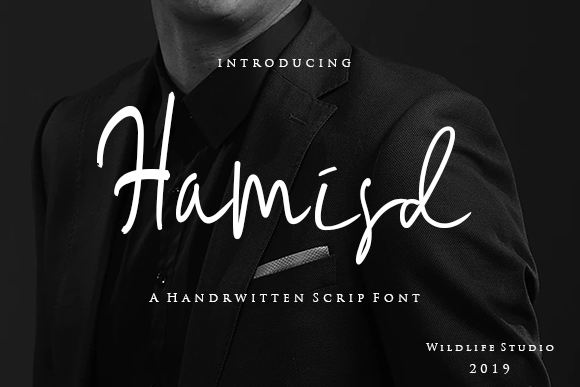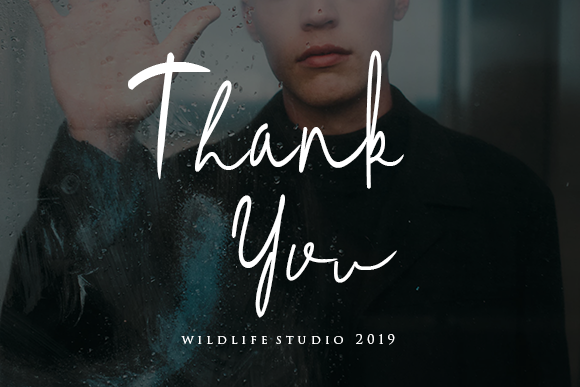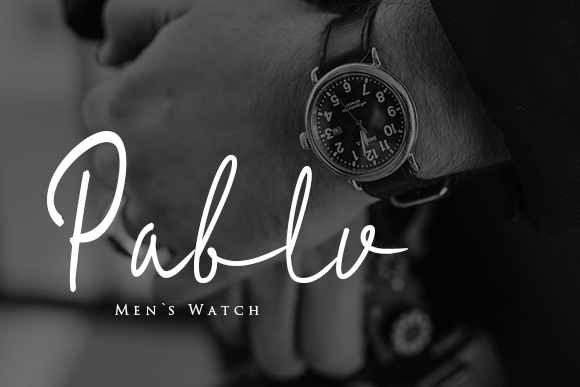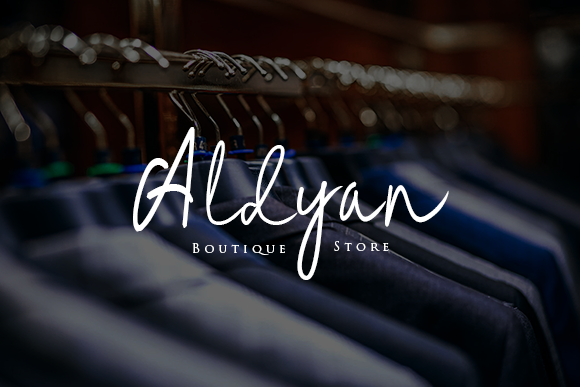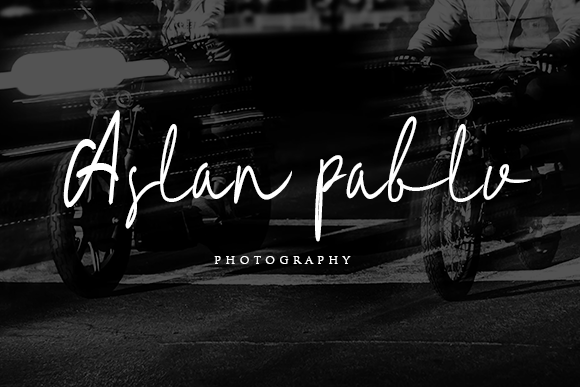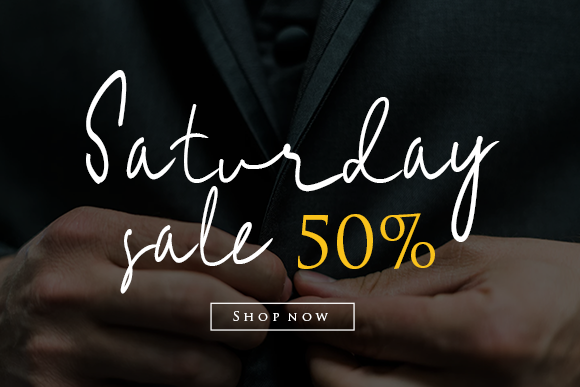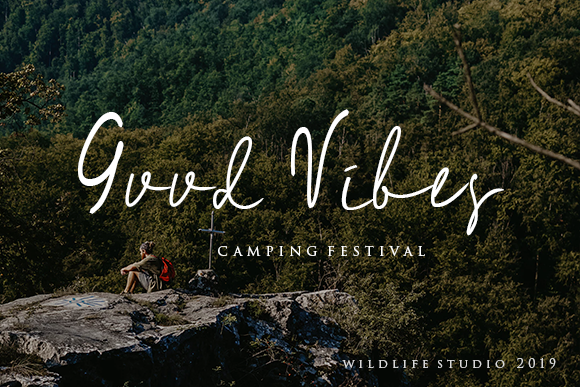
Hamisd Font
About Hamisd Font
The Hamisd Signature is a classy, elegant and super stylish modern calligraphy font with natural handwritten movements.
It’s perfect for many different project such as logos & branding, invitations, stationery, wedding designs, social media posts, and much more!